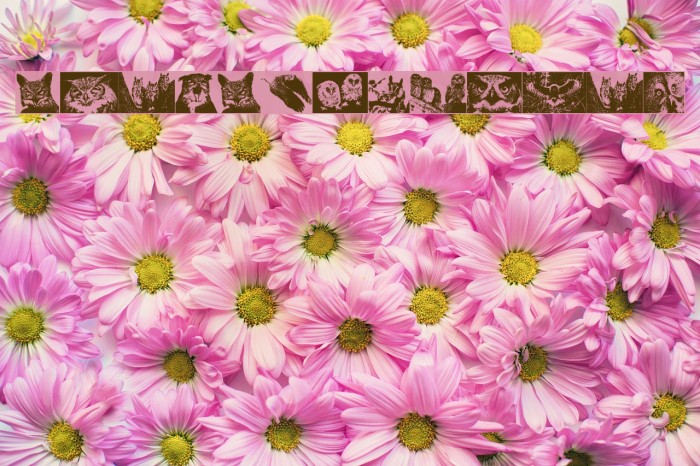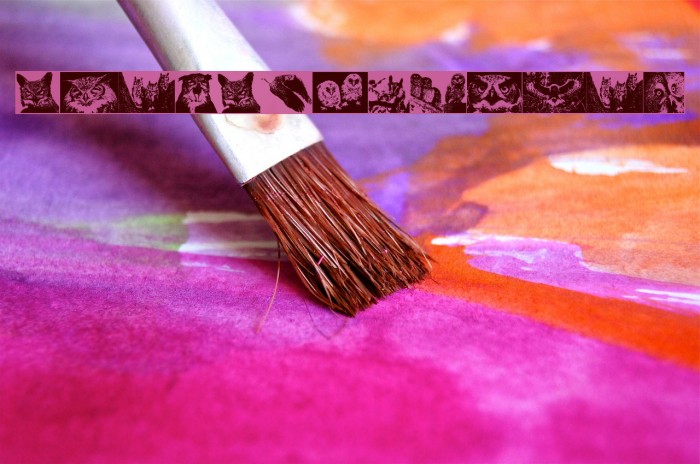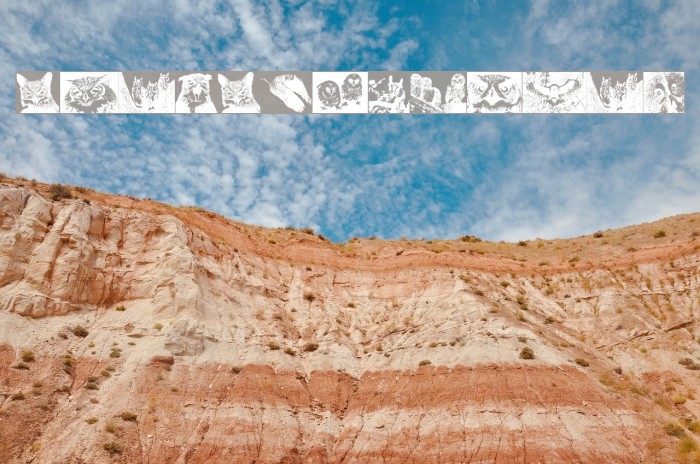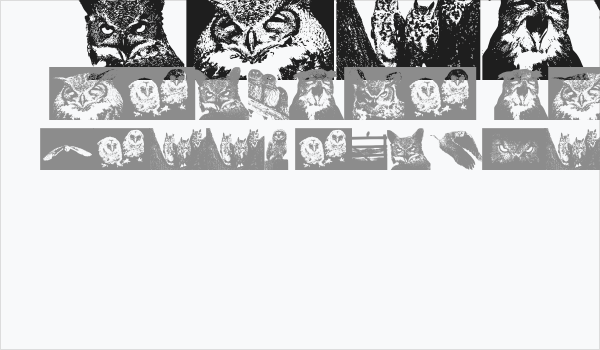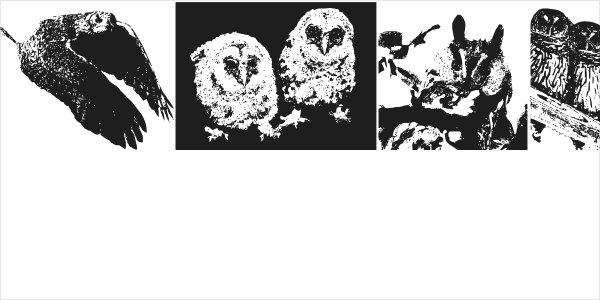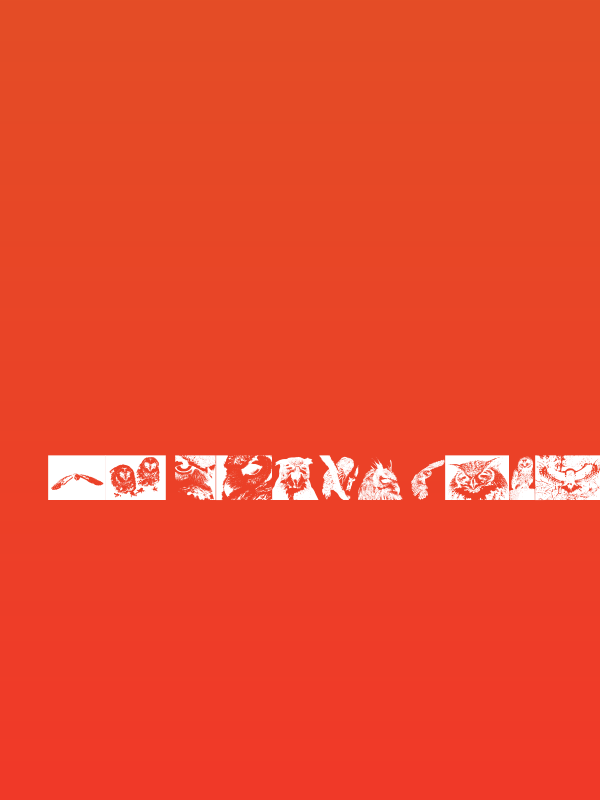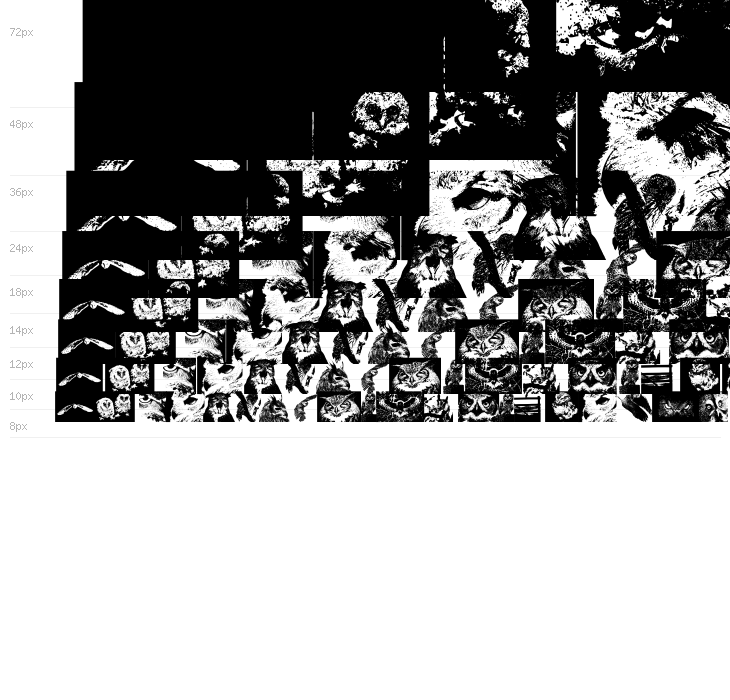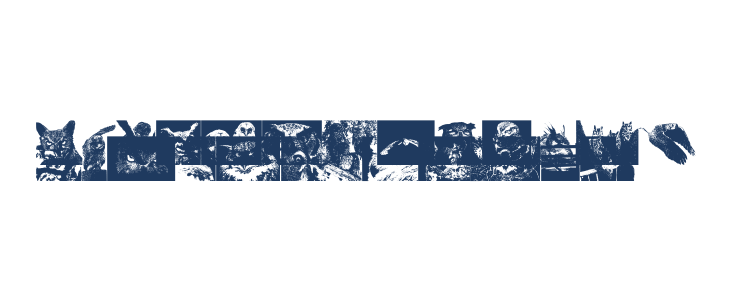
AParliamentofOwls Font
AParliamentofOwls Description
A highly decorative and illustrative set of glyphs featuring detailed black-and-white owl illustrations and related imagery for each character, rather than traditional letterforms.
| Overall Style | Decorative, Illustrative, Thematic |
| Use Case | Display, Illustration, Themed graphics |
| Proposed Projects | ChildrenΓ’β¬β’s books, themed posters, educational materials, decorative initials, animal-themed branding. |